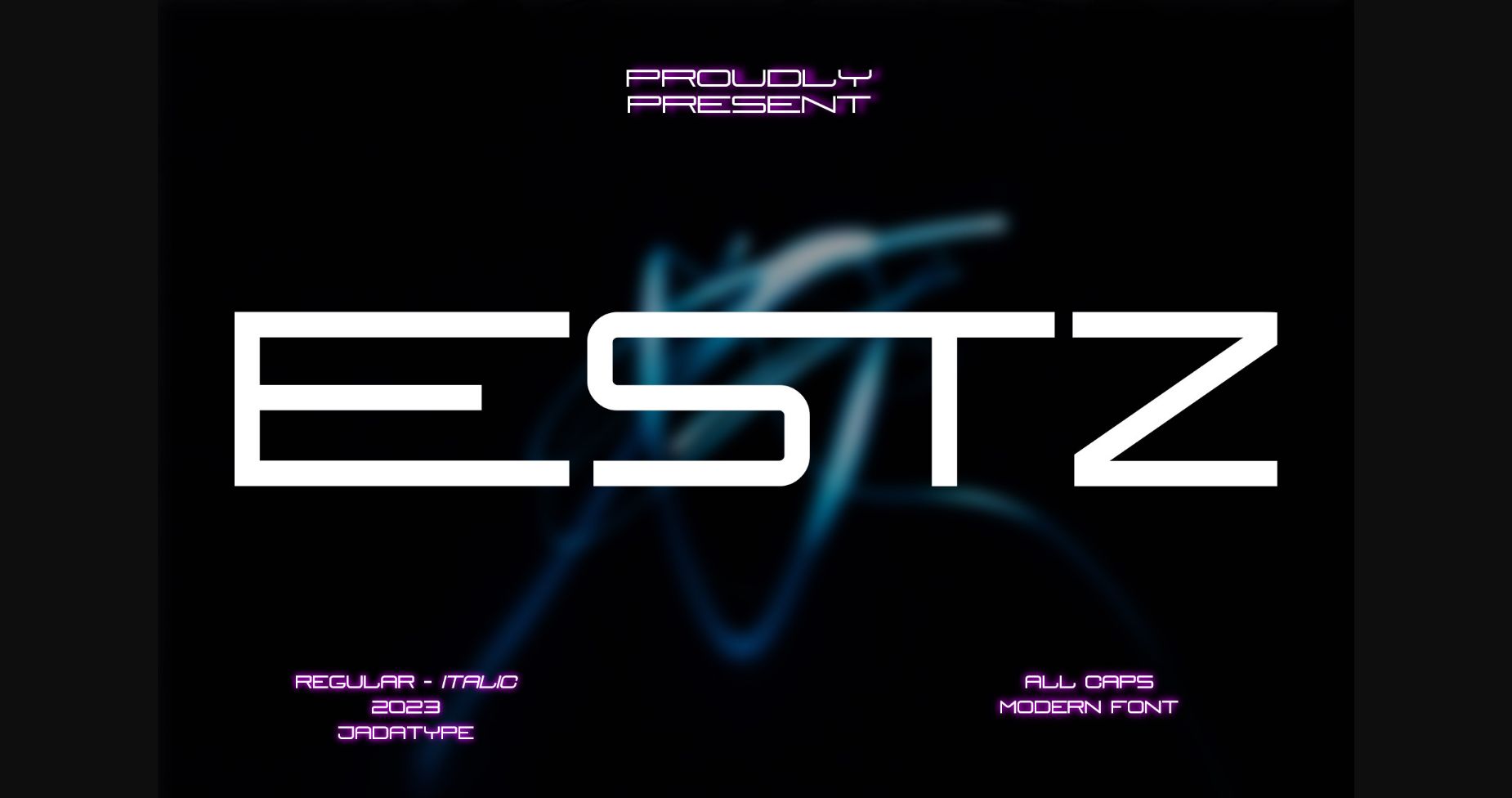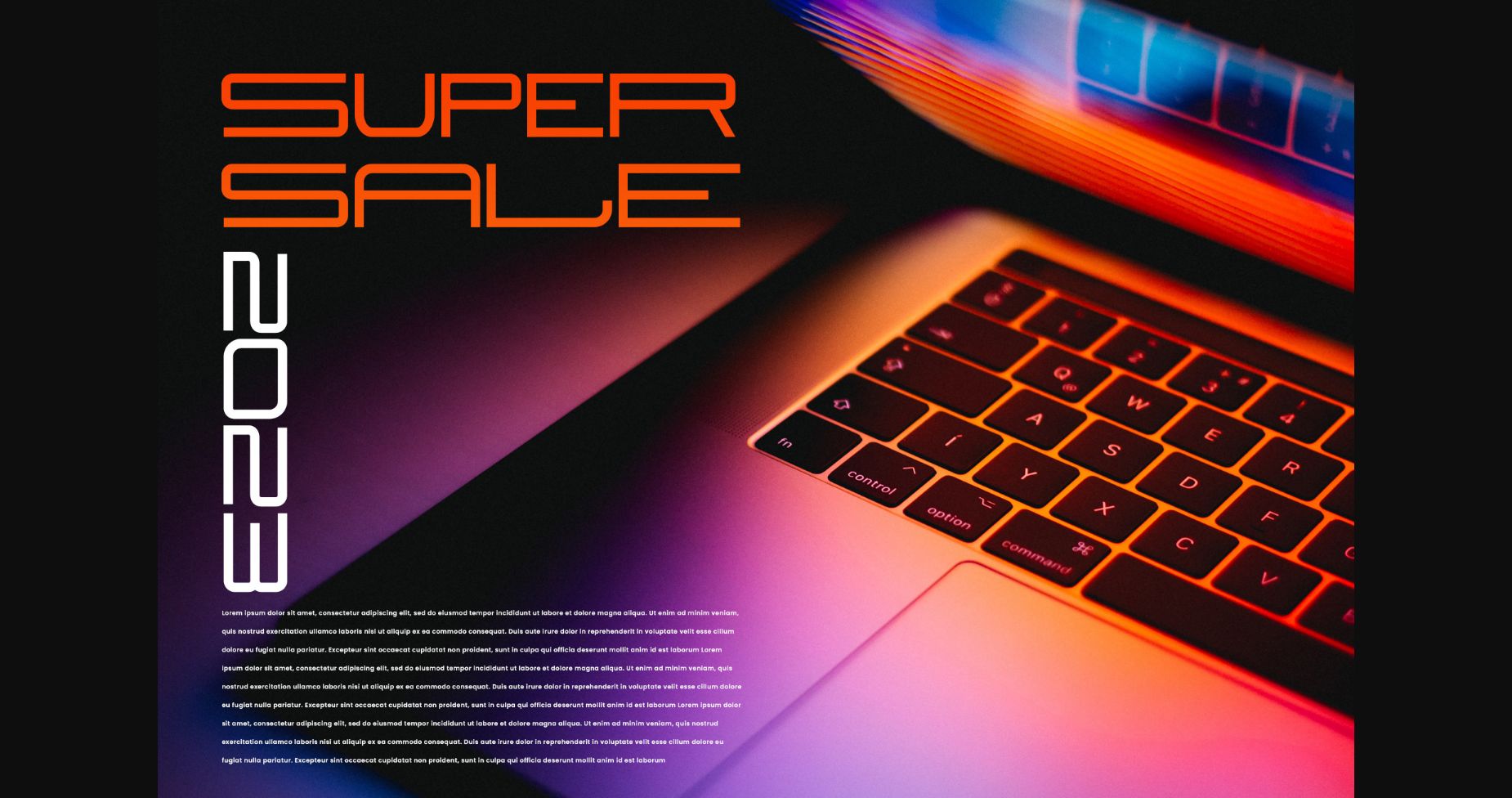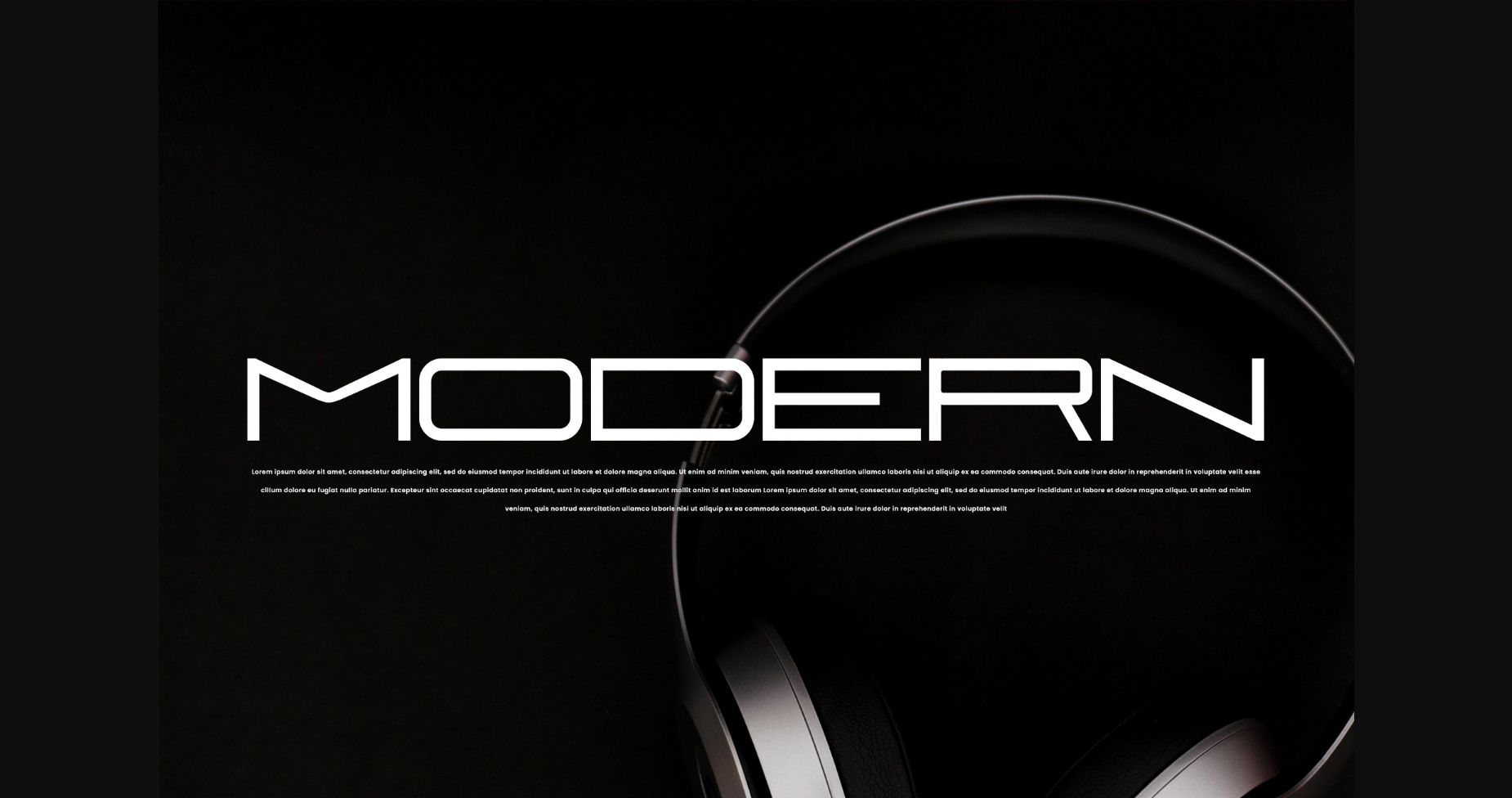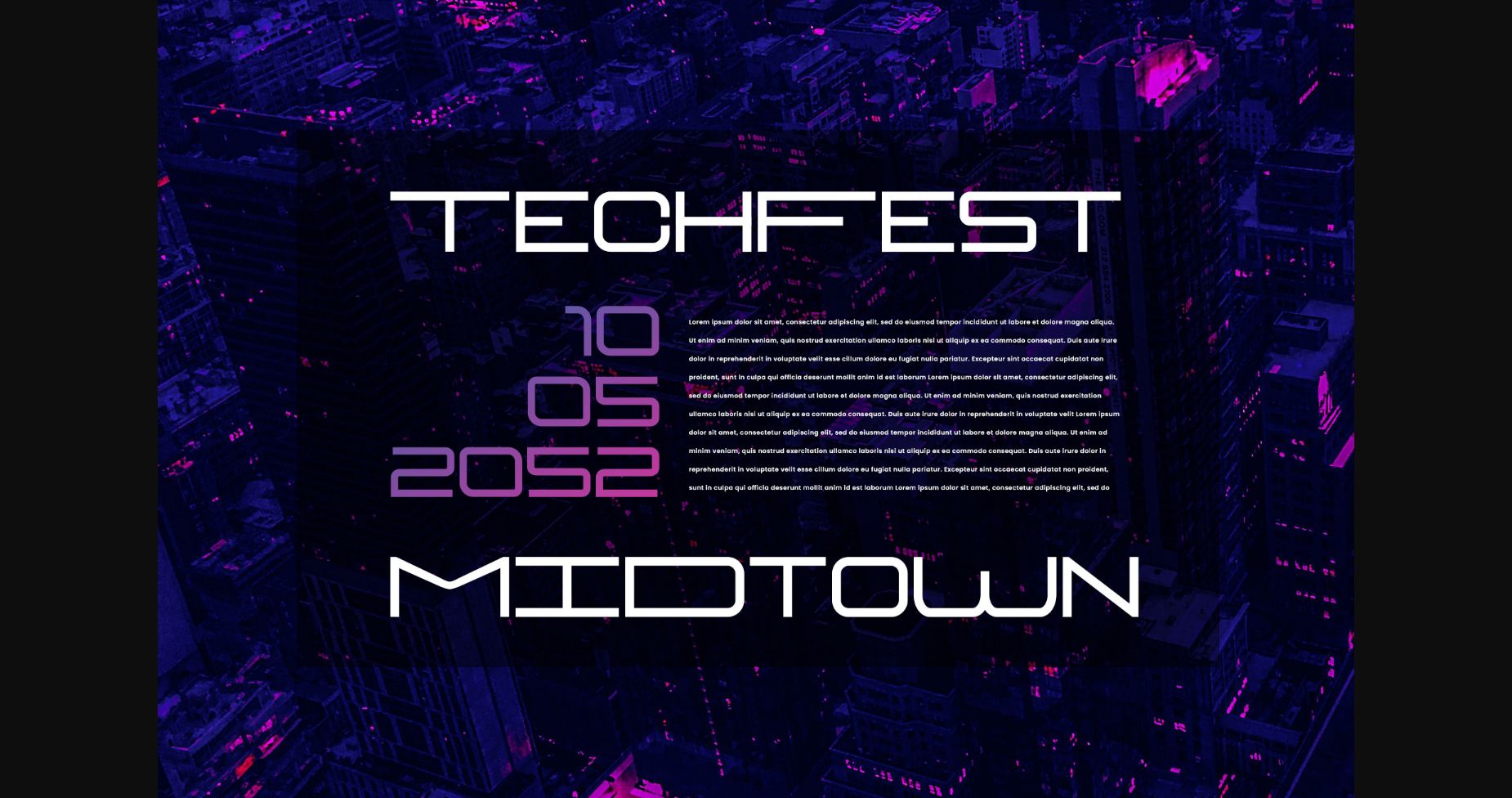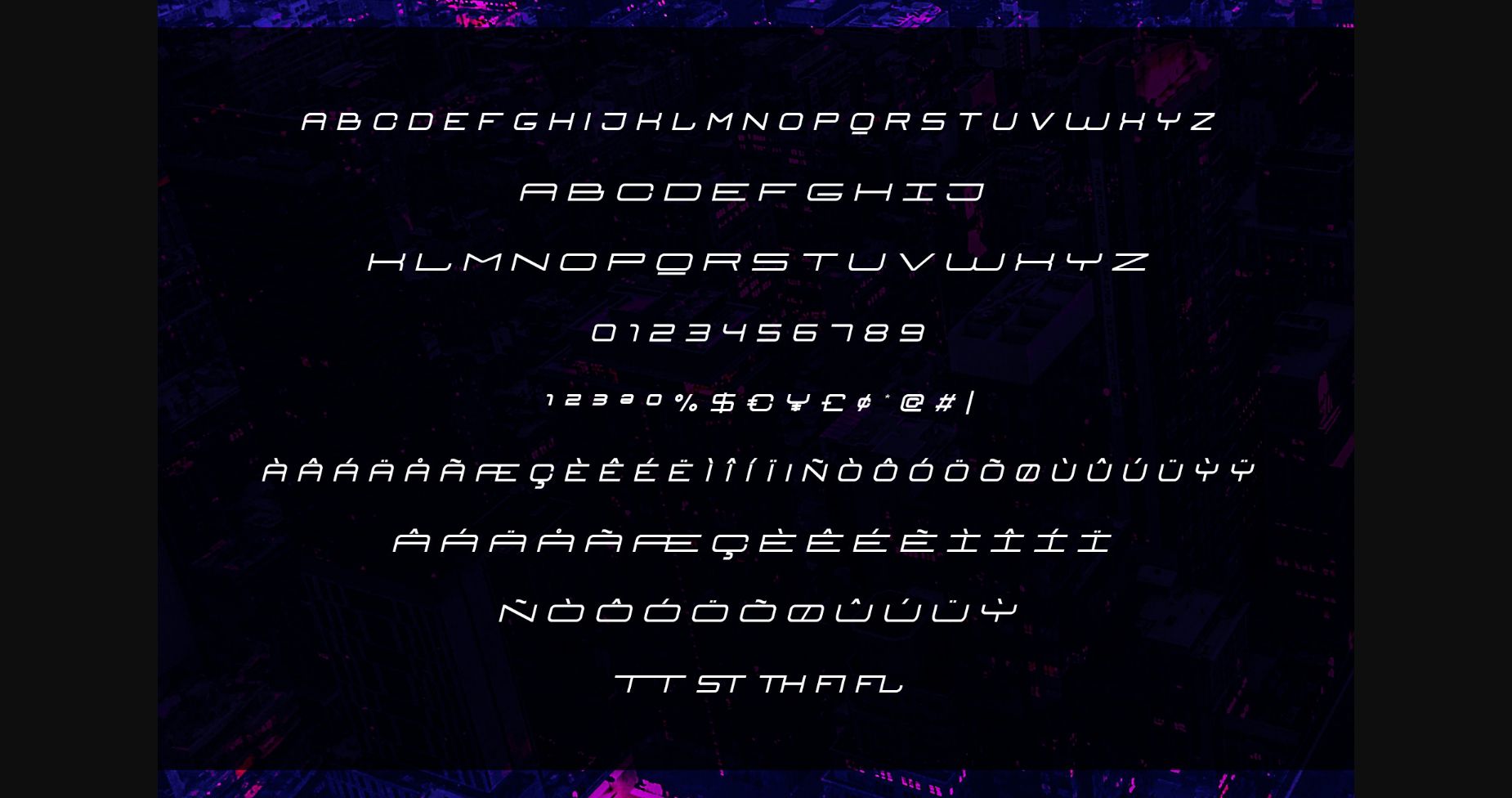
Estz Font
About Estz Font
Estz is an all-caps font with a modern feel. Suitable for branding, logotype, technology stuff, modern & futuristic vibe, social media, products, and so on.